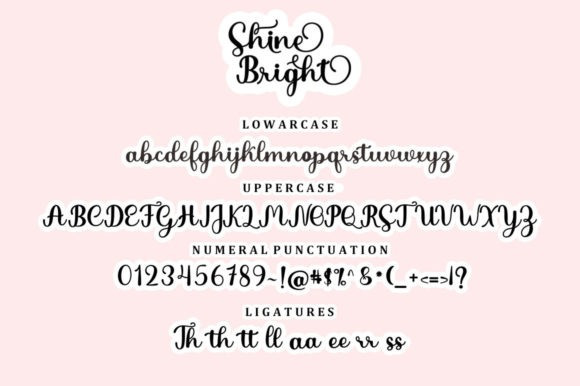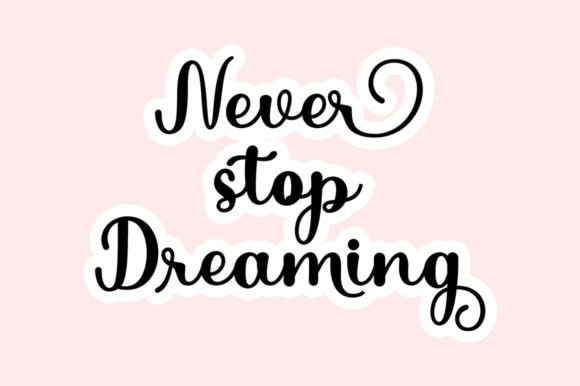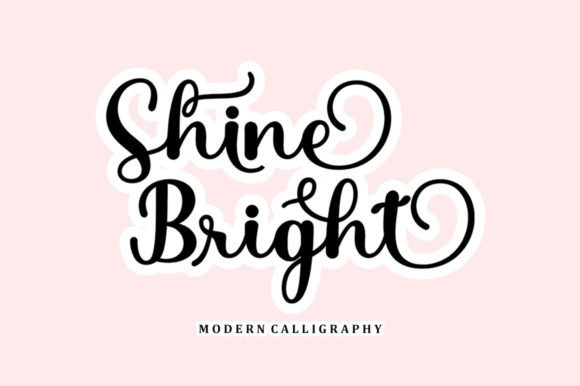
Shine Bright Font
Shine Bright Calligraphy Font feels equally romantic and whimsical. It looks lovely on wedding invitations, thank you cards, quotes, greeting cards, logos, business cards and every other design which needs a handwritten touch.
This font is PUA encoded which means you can access all of the glyphs and swashes with ease! It features a varying baseline, smooth lines, gorgeous glyphs and stunning alternates.